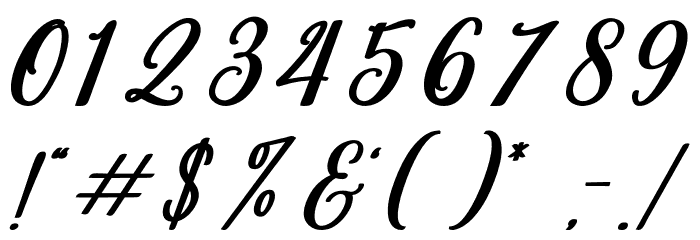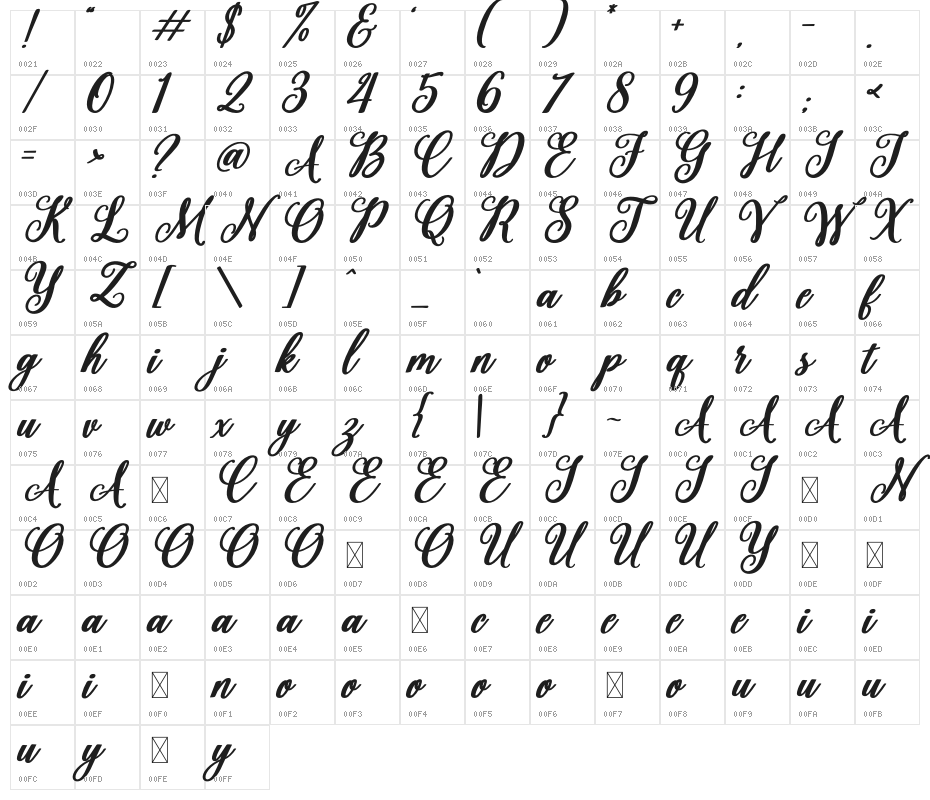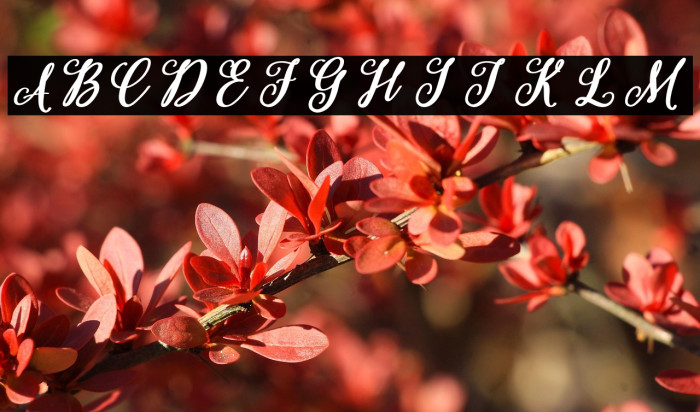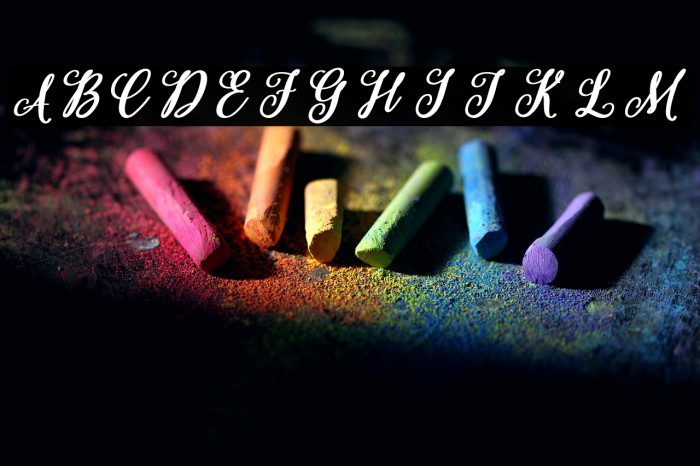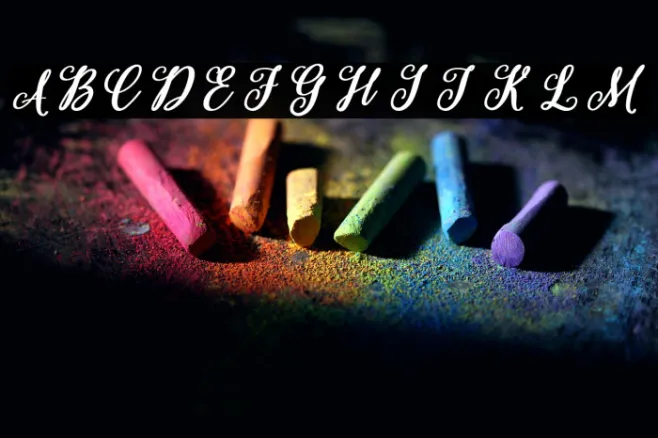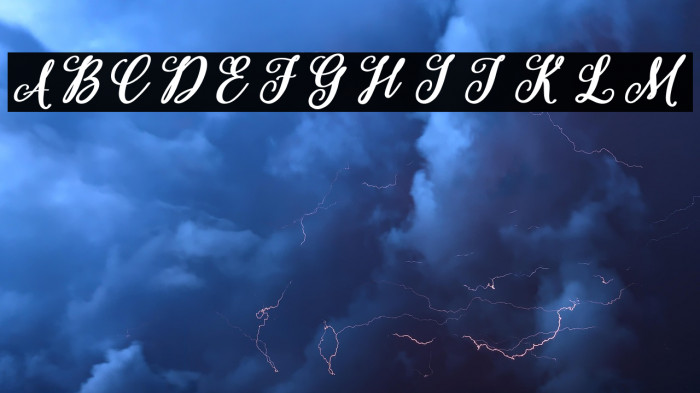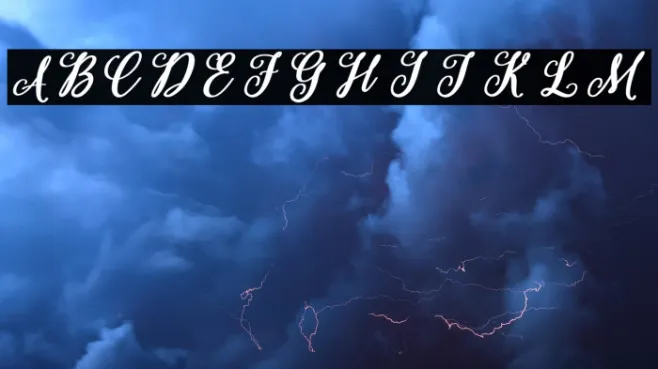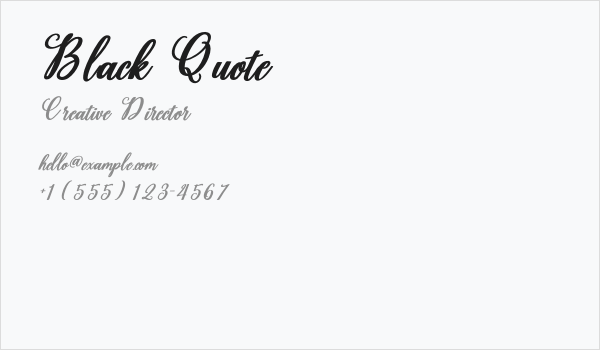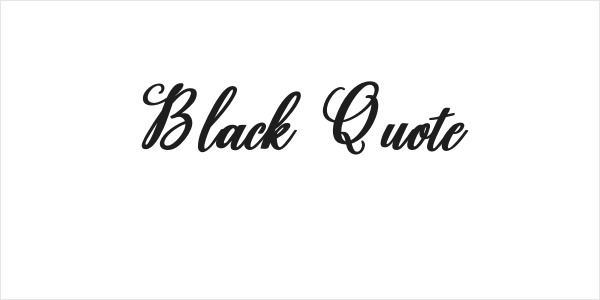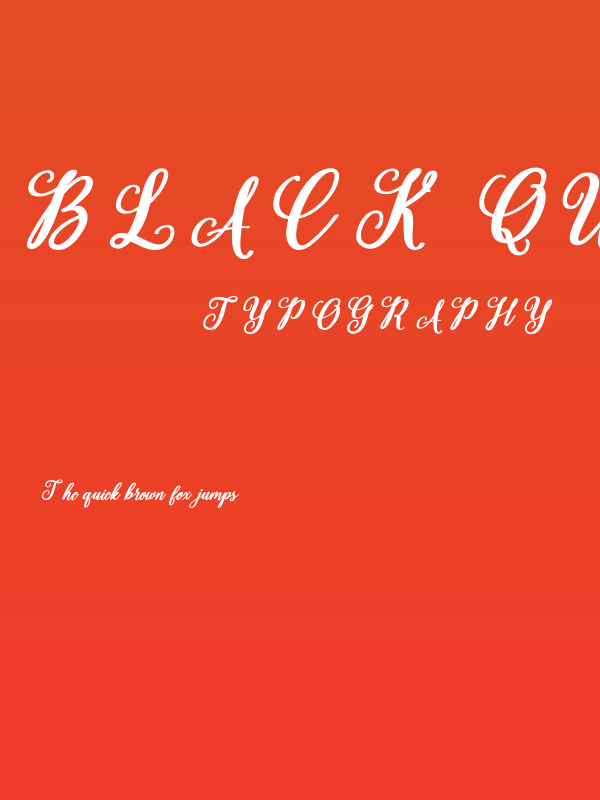
Black Quote Font
Black Quote Description
This font exudes a classic and elegant script style, characterized by its fluid and connected strokes. The uppercase letters are ornate, with sweeping curves and flourishes that add a touch of sophistication. The lowercase letters maintain a consistent flow, enhancing readability while preserving the decorative nature. Numbers and special characters are designed to match the script's elegance, featuring similar curves and embellishments. The overall appearance is both stylish and timeless, making it suitable for projects that require a touch of class and refinement.
Overall StyleClassic
Use CaseLogos, Invitations, Branding
Proposed ProjectsIdeal for wedding invitations, elegant branding, greeting cards, and upscale packaging.